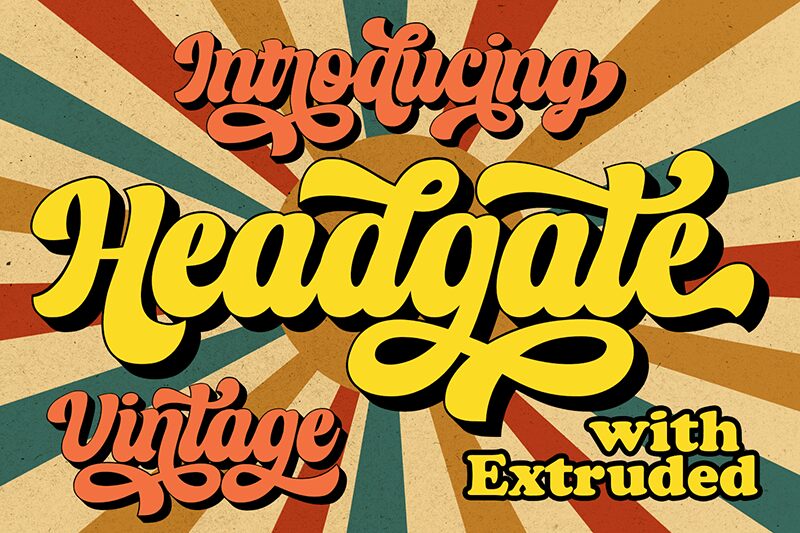
Headgate free Regular
Headgate font by Figstype is a bold brush typeface with an expressive style perfect for designers looking for a new way to transform headlines. This elegant font is vintage-inspired and boasts a cohesive flowing structure that is easy on the eye. A free cohesive handwritten tool, Headgate’s charm could simply enhance whatever modern applications it’s used in.
Versatility among cursive script fonts is rare, which makes Headgate even more special since it balances perfectly between professional and casual use cases. And if you haven’t found the proper tasks for it yet, then think of titles in books and magazines, branding and packaging designs, labels on drink and food products they’re often present as part of!